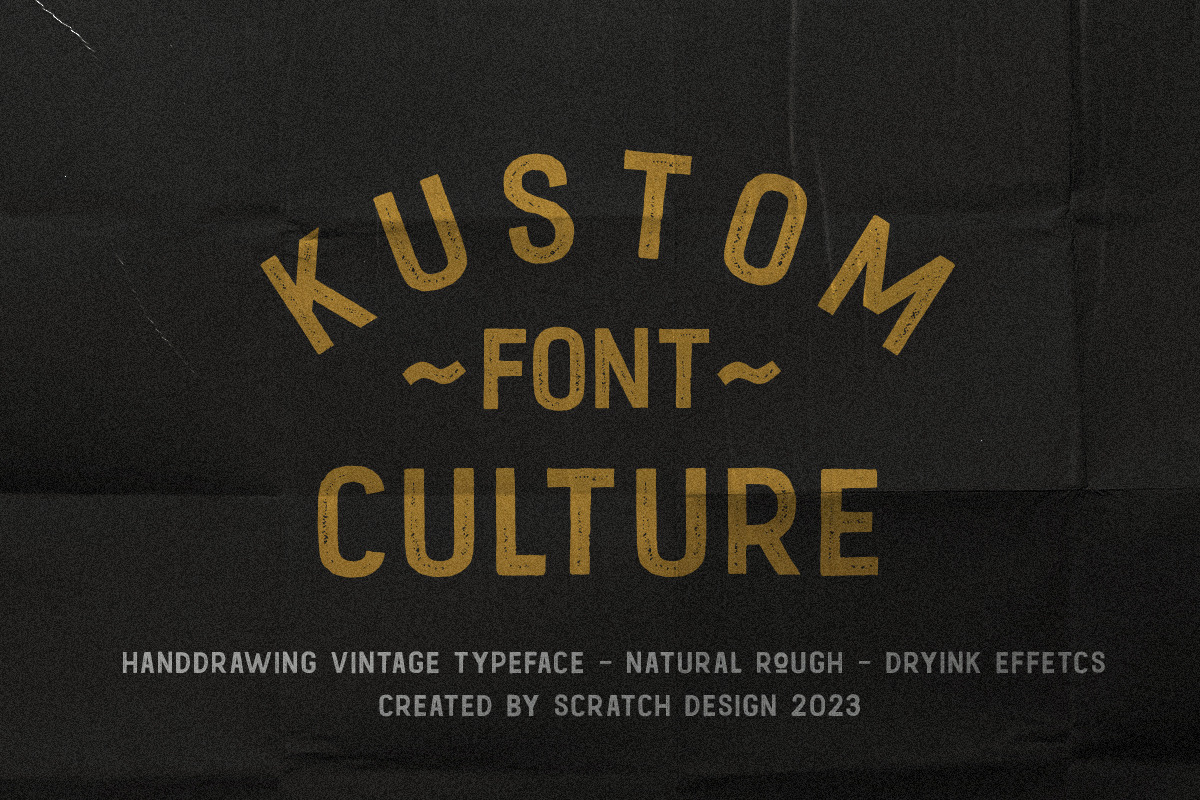
Kustom Culture font was born from an inspiring vintage old paint display. This font gives a vintage, classic, and old feel, inspired by authentic old paint effects. Kustom Culture font is perfect for you looking for a vintage and logotype. Suitable for any graphic designs such as branding materials, t-shirts, badges, print, packaging, label, business cards, logos, posters, t-shirts, quotes .etc